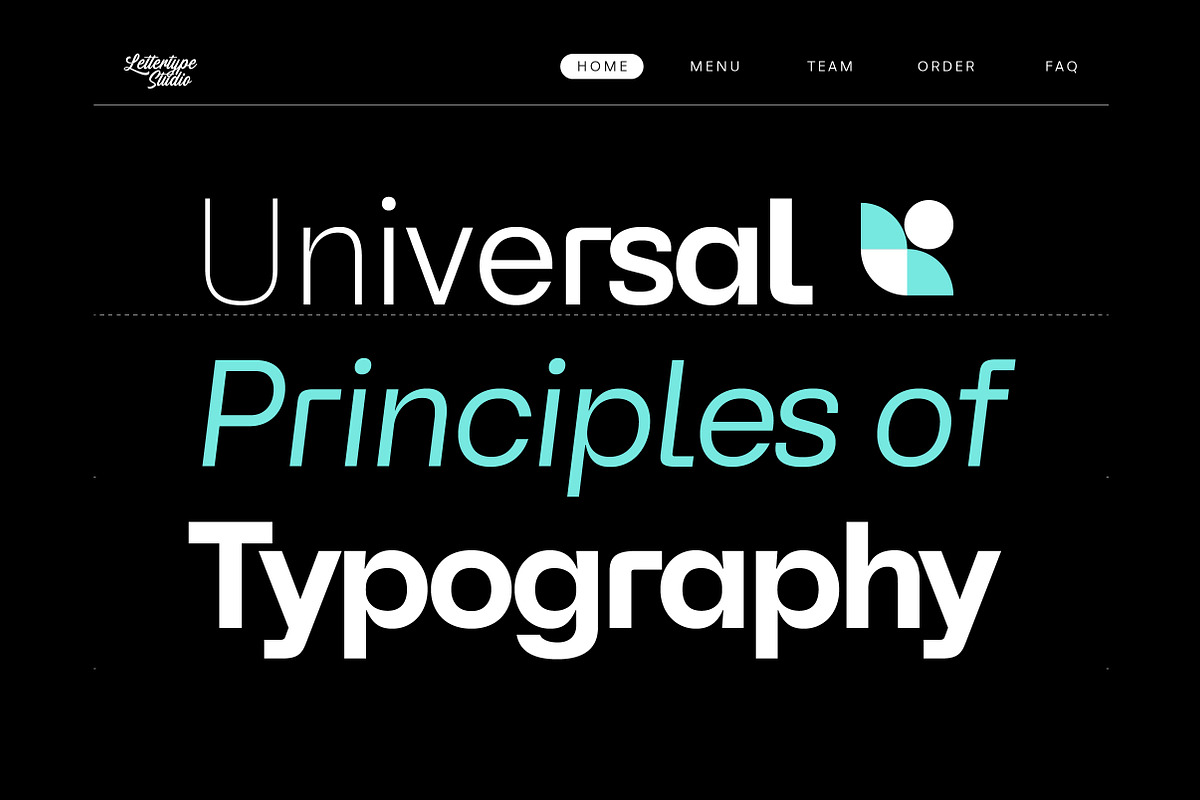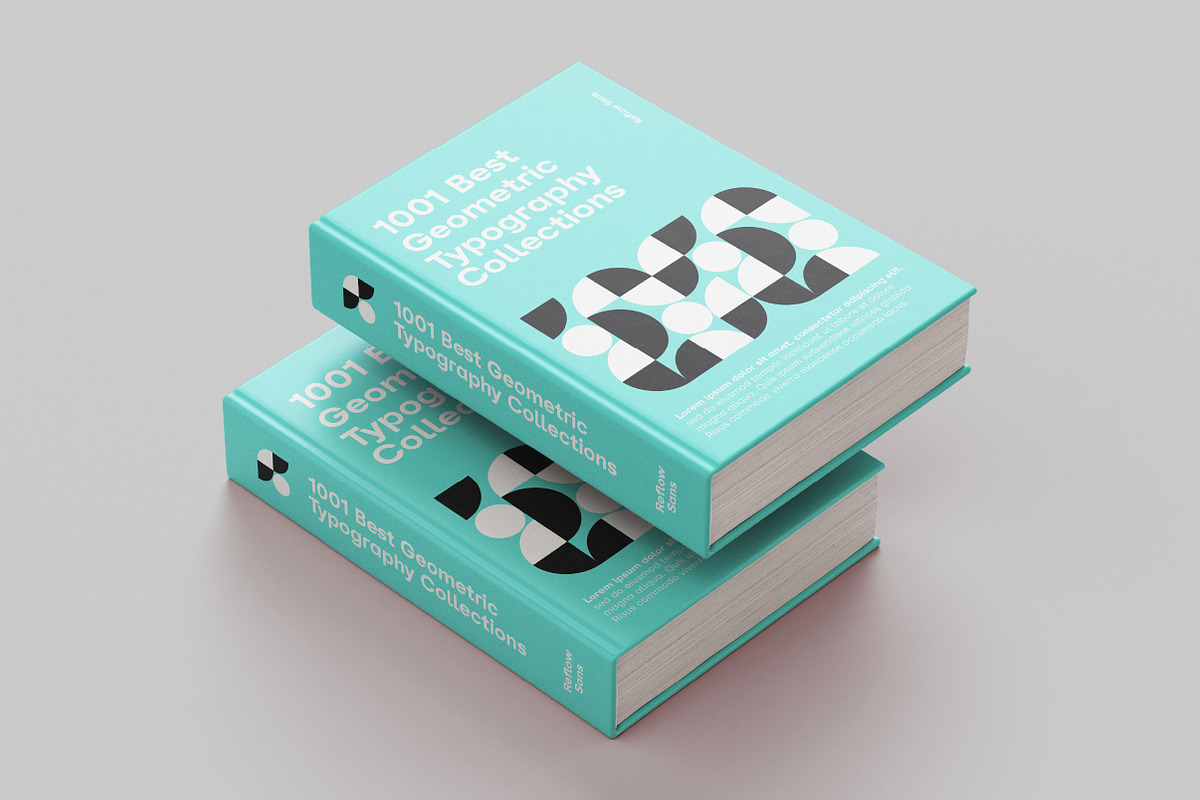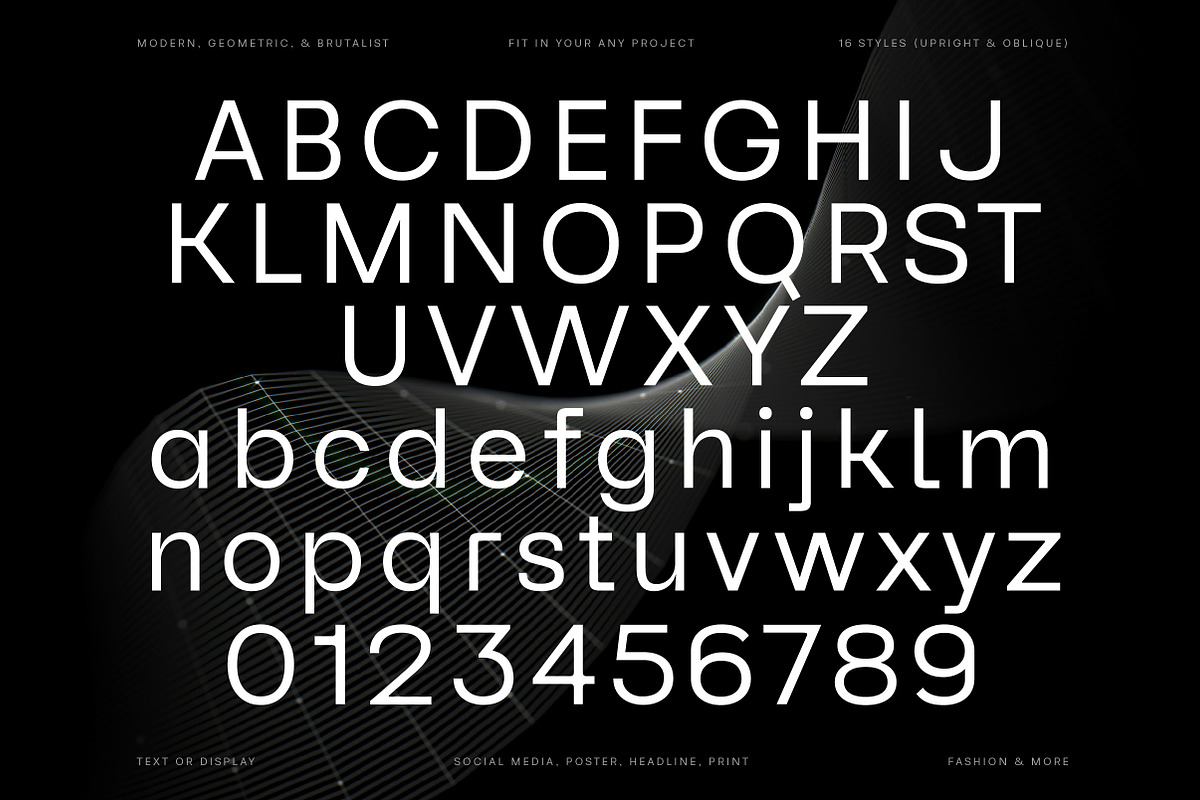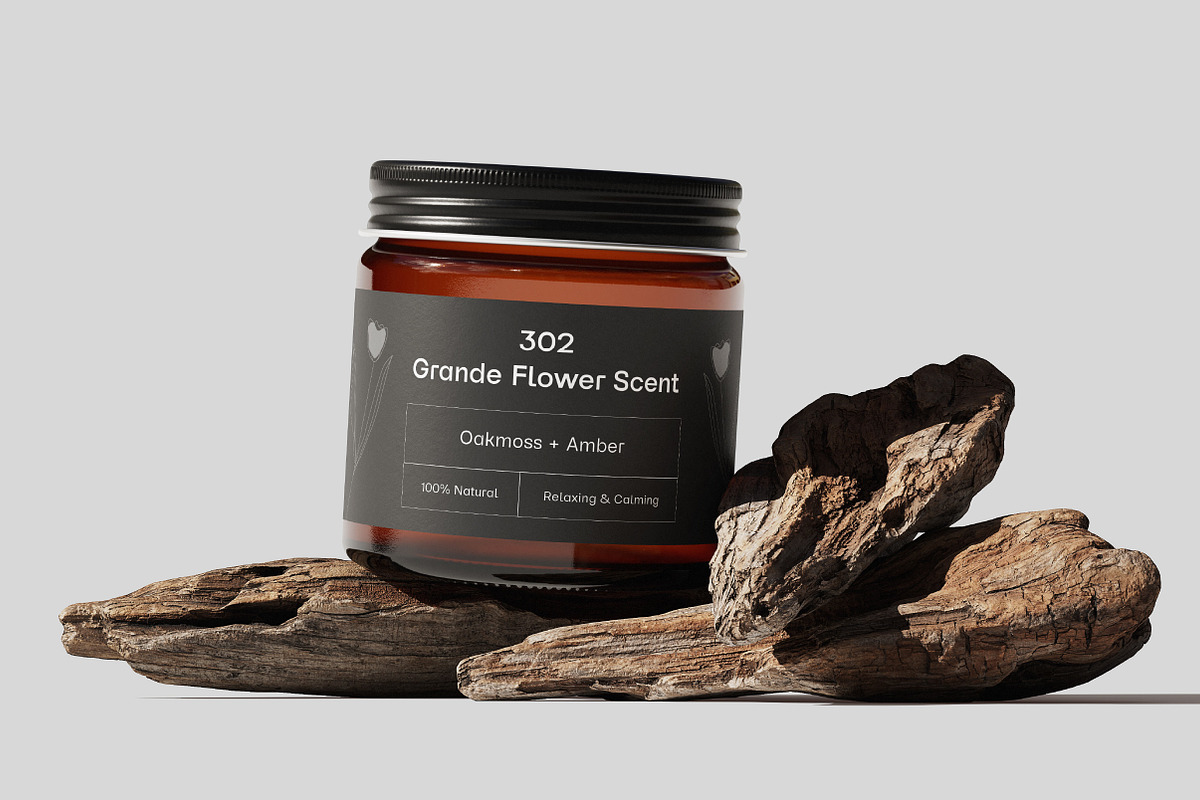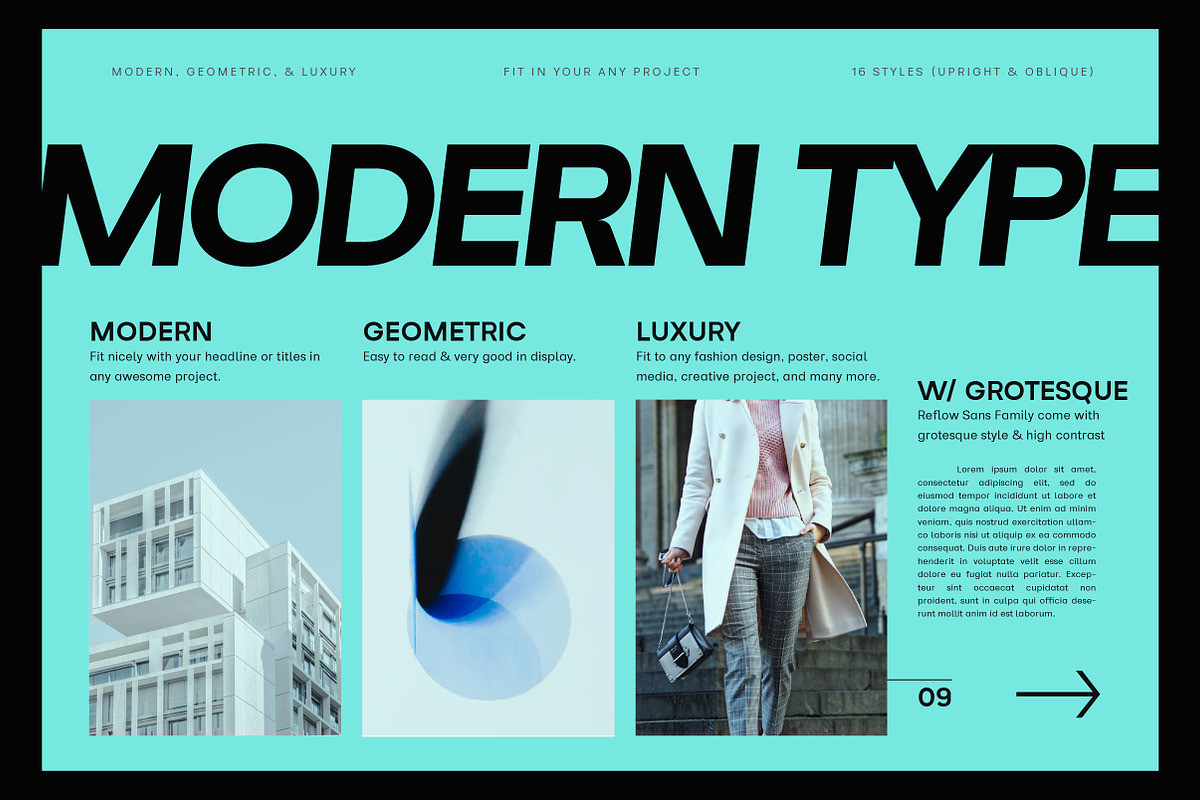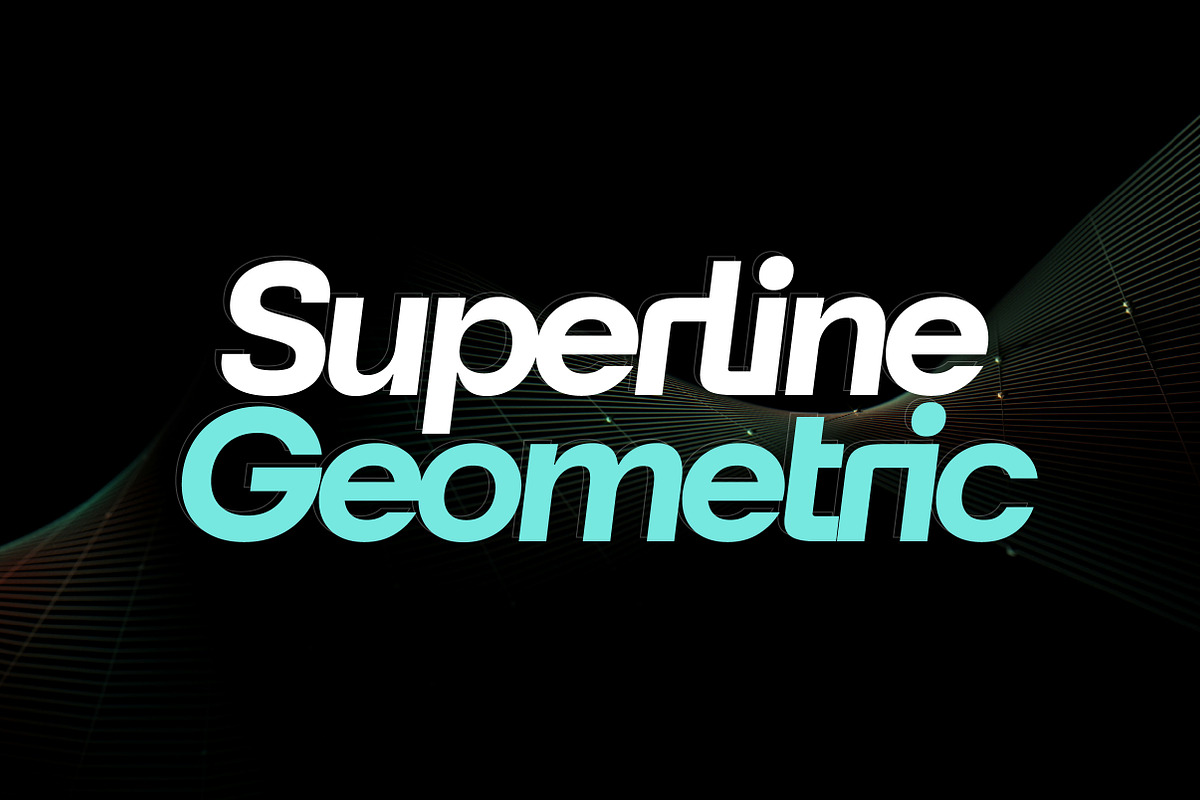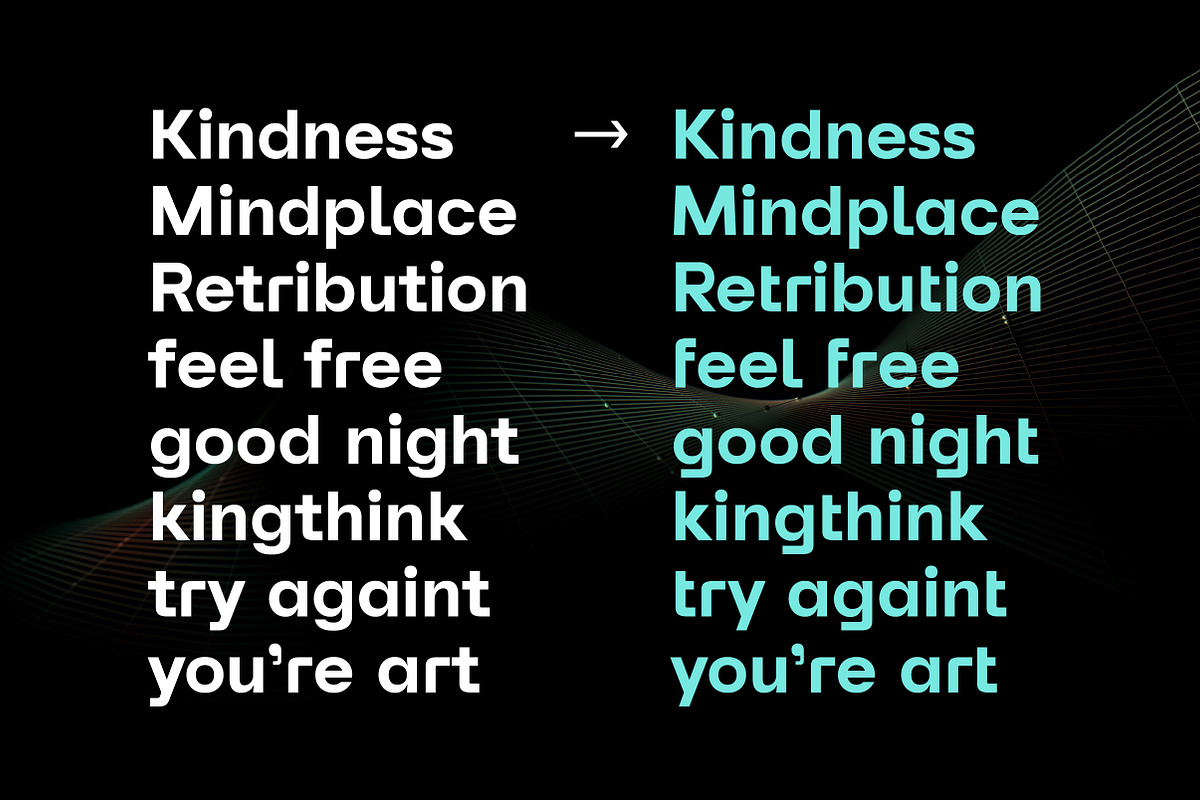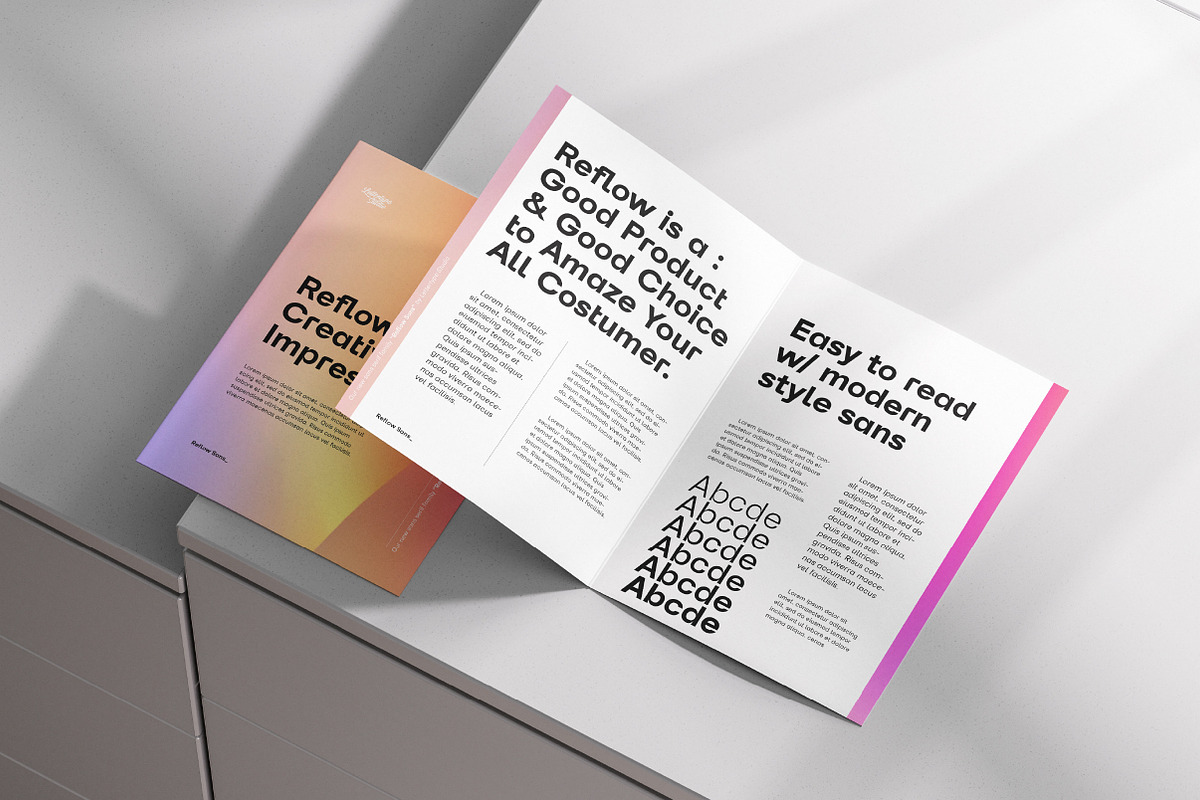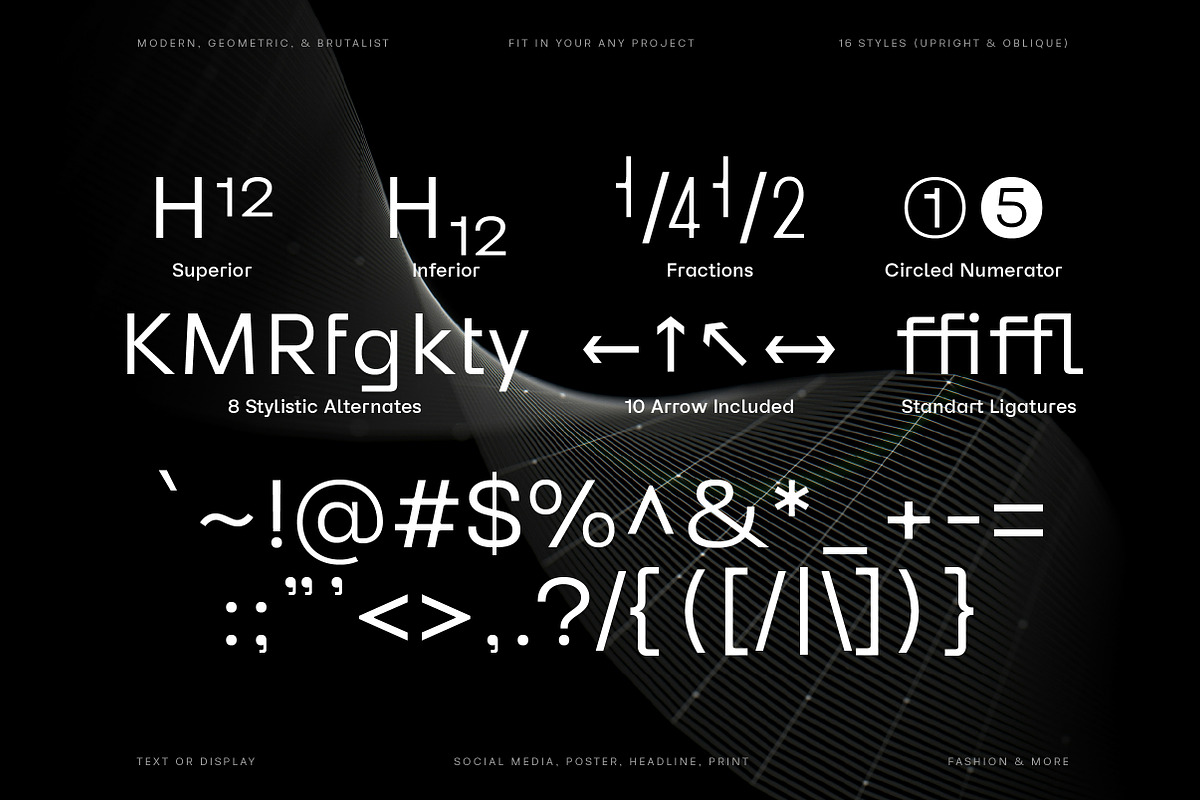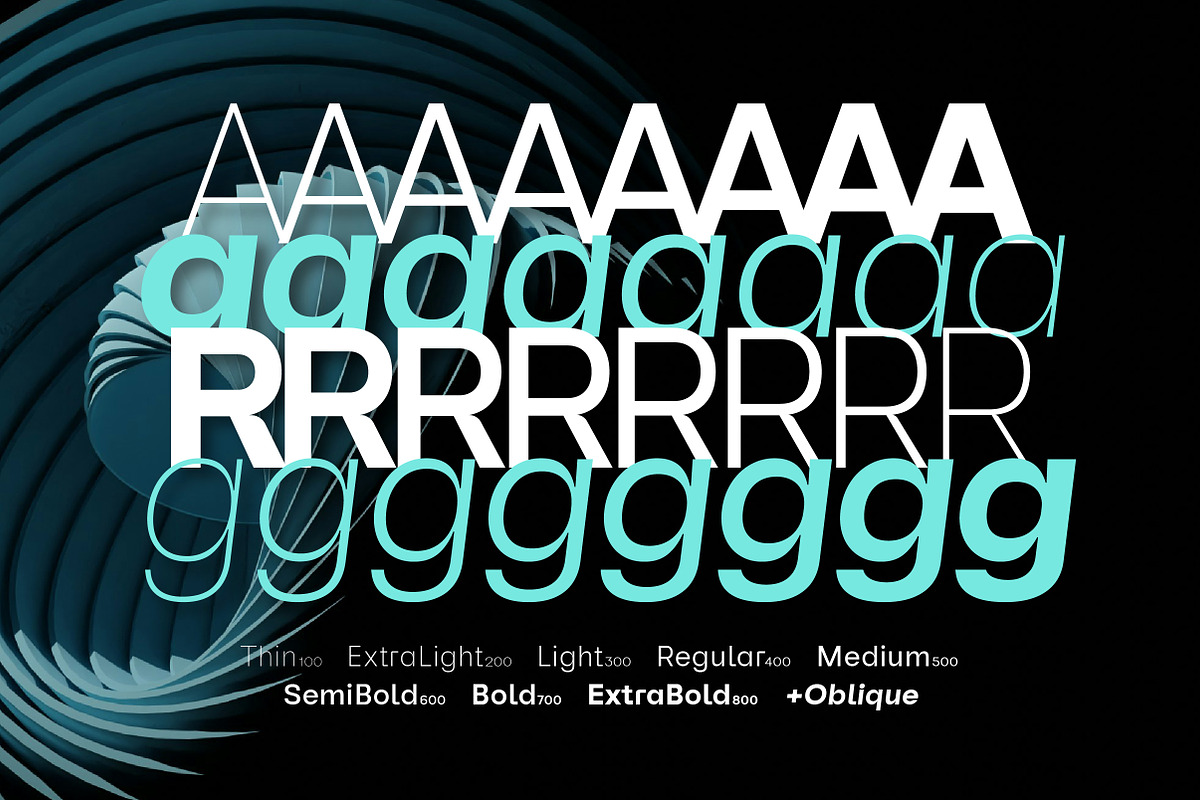
Reflow Sans | Modern & Geometric
Reflow Sans is a modern and versatile sans-serif geometric typeface infused with subtle grotesque elements and high contrast. It delivers simplicity and naturality while exuding a strong personality with refined proportions. Designed for readability and versatility, this font family balances clean, brutalist style and geometric precision with the warmth and flexibility of grotesque design.
There is a wide range of weights, from thin to ExtraBlack, including 16 weights in Upright and oblique styles. OpenType features include stylistic alternates (K, M, R, f, g, k, t, & y), figure variations (superiors, inferiors, fractions, circled numerators, arrows, and standard ligatures), and broad Latin language support.
These geometric, high-contrast grotesque fonts are crafted with impeccable legibility and sleek, seamless aesthetic appeal. They are clean, modern, and versatile options for any project, including fashion, print design, social media, creatives, branding, UI/UX, web typography, packaging, or editorial design. They will elevate your creative projects and keep your designs on-trend.
Reflow Sans Features:
- 16 Styles
- Upright & Oblique
- 472 Glyphs Total
- 270+ Languages Support
- Corporate branding, editorial design & modern advertising
- UI/UX, web typography & digital product interfaces
- Packaging, posters & fashion campaigns
- Magazines, book layouts & minimalist visuals
- Tech startups, creative agencies & design portfolios